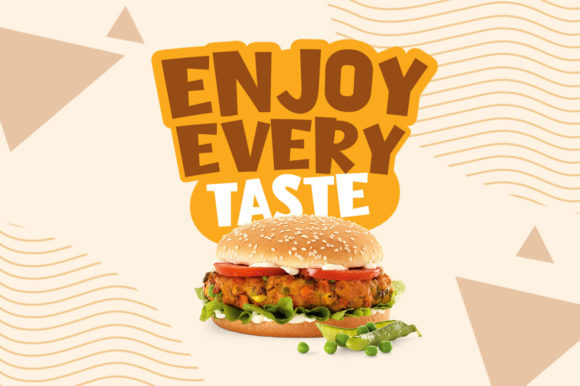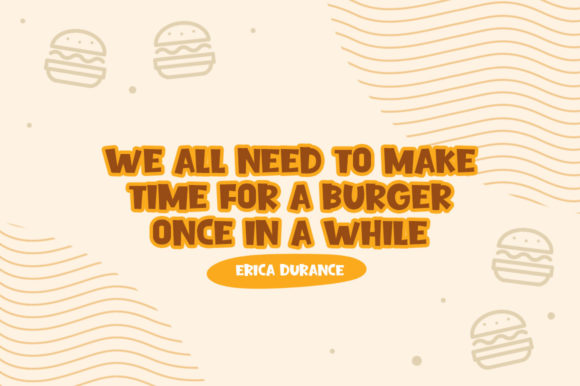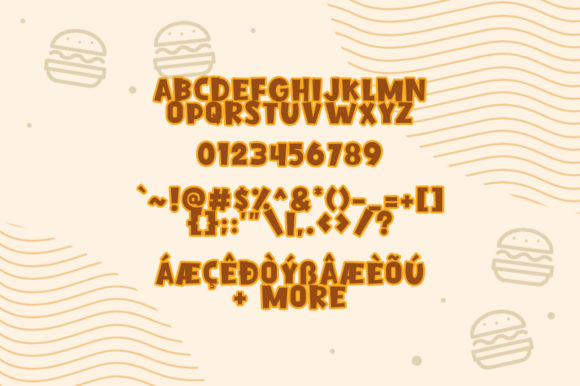
Burger Extra Font: The Fun and Playful Retro-Styled Display Font
Are you looking for a font that can add a touch of fun and playfulness to your designs? Look no further than Burger Extra Font! This retro-styled display font is perfect for cartoon-related designs, children’s games, and any creation that requires a lovely touch. In this article, we’ll take a closer look at Burger Extra Font and explore its features, benefits, and uses.
What is Burger Extra Font?
Burger Extra Font is a fun and playful display font that is designed to bring a retro vibe to your designs. Its unique and quirky style makes it perfect for designs that require a touch of whimsy and personality. The font is carefully crafted to ensure that it is legible and easy to read, making it suitable for a wide range of design projects.
Key Features of Burger Extra Font
- Retro-style design: Burger Extra Font has a distinct retro-style design that is reminiscent of classic cartoons and comics.
- Fun and playful: The font is designed to be fun and playful, making it perfect for designs that require a lighthearted touch.
- Highly legible: Despite its playful design, Burger Extra Font is highly legible and easy to read.
- Versatile: The font can be used for a wide range of design projects, from cartoon-related designs to children’s games and more.
Benefits of Using Burger Extra Font
- Adds a touch of personality: Burger Extra Font can add a touch of personality and whimsy to your designs, making them stand out from the crowd.
- Perfect for kids’ designs: The font’s playful design makes it perfect for designs aimed at kids, such as children’s games, educational materials, and more.
- High-quality design: The font is carefully crafted to ensure that it is of high quality and suitable for professional design projects.
Uses of Burger Extra Font
- Cartoon-related designs: The font’s retro-style design makes it perfect for cartoon-related designs, such as character designs, logos, and more.
- Children’s games: Burger Extra Font is perfect for children’s games, including game titles, buttons, and other UI elements.
- Posters and flyers: The font can be used to create eye-catching posters and flyers for events, promotions, and more.
- Branding and logos: Burger Extra Font can be used to create unique and memorable logos and branding materials.
- Use it sparingly: While Burger Extra Font is a fun and playful font, it can be overwhelming if used too much. Use it sparingly to add a touch of personality to your designs.
- Pair it with other fonts: Burger Extra Font can be paired with other fonts to create a unique and interesting design.
- Experiment with colors: The font looks great in a variety of colors, so don’t be afraid to experiment and find the perfect color scheme for your design.
Burger Extra Font is a fun and playful retro-styled display font that is perfect for designers and crafters looking to add a touch of personality to their designs. With its unique design, high legibility, and versatility, this font is suitable for a wide range of design projects. Whether you’re creating cartoon-related designs, children’s games, or just any creation that requires a lovely touch, Burger Extra Font is an amazing choice. So why not give it a try and see how it can elevate your designs?